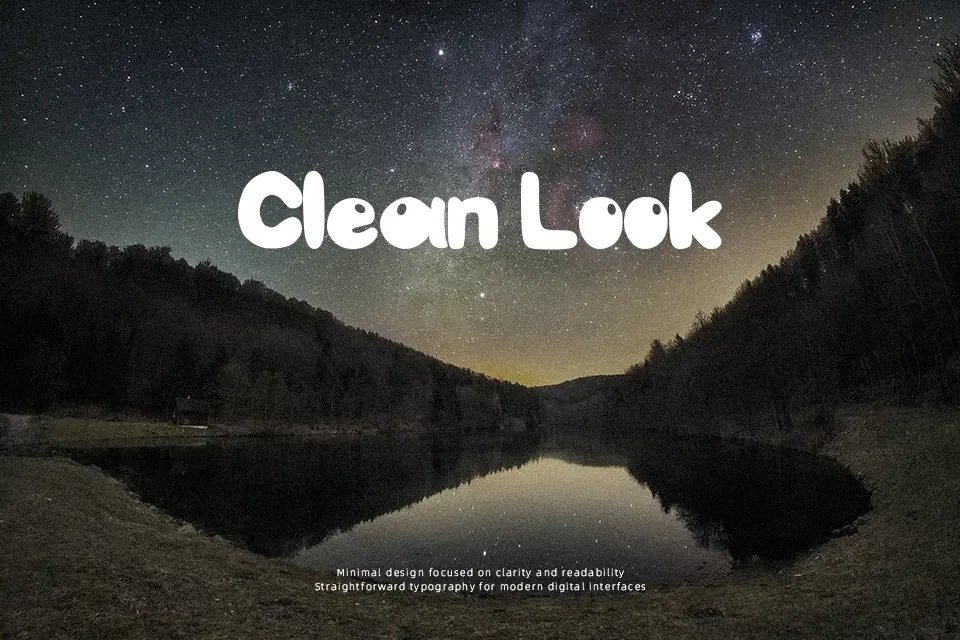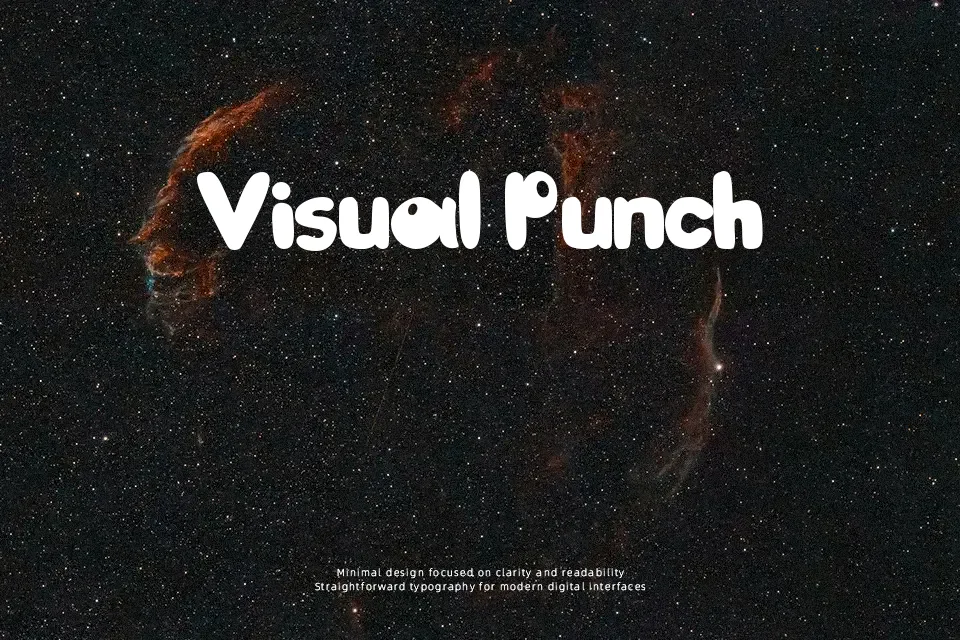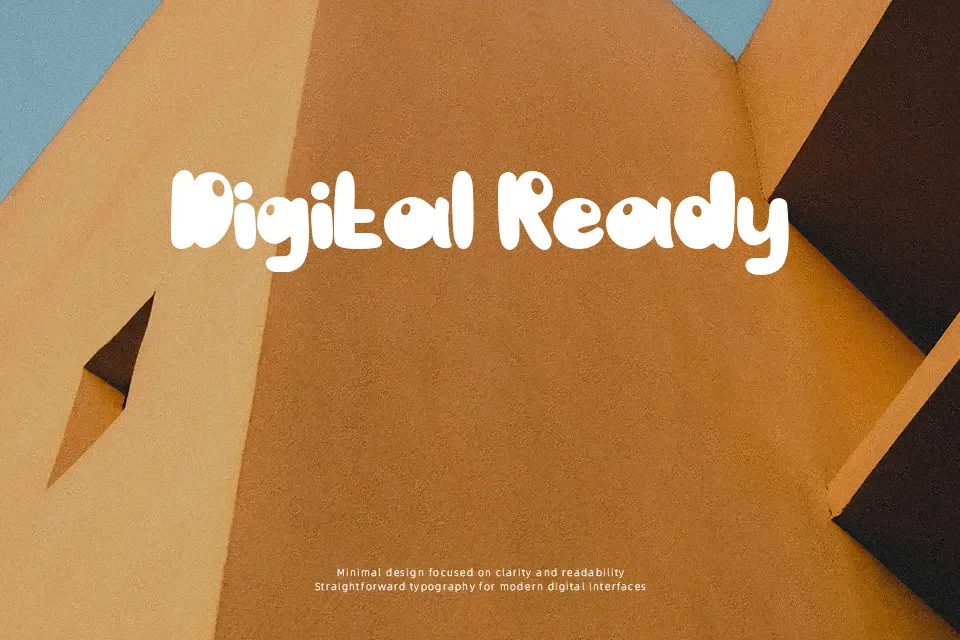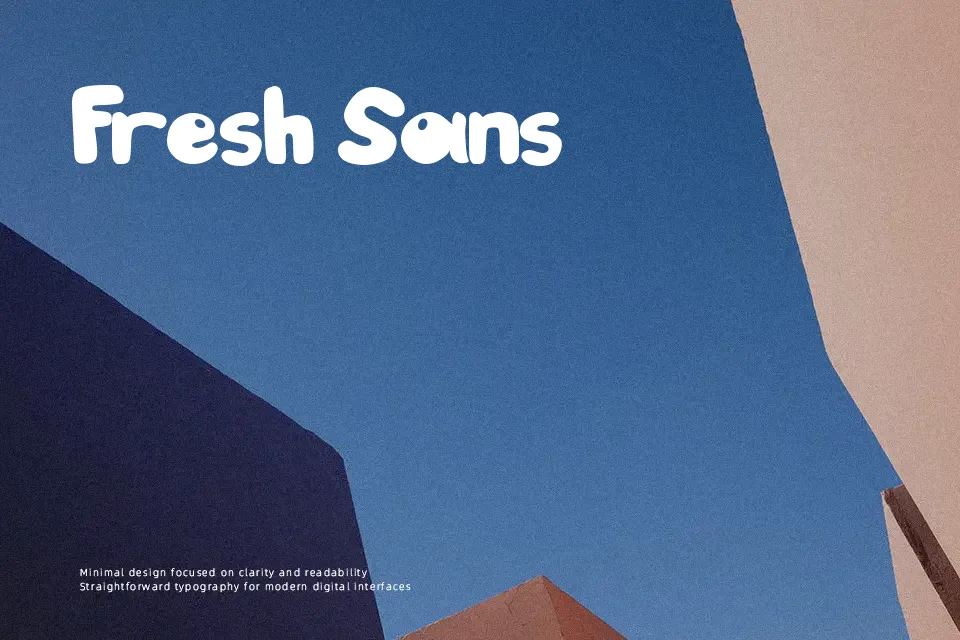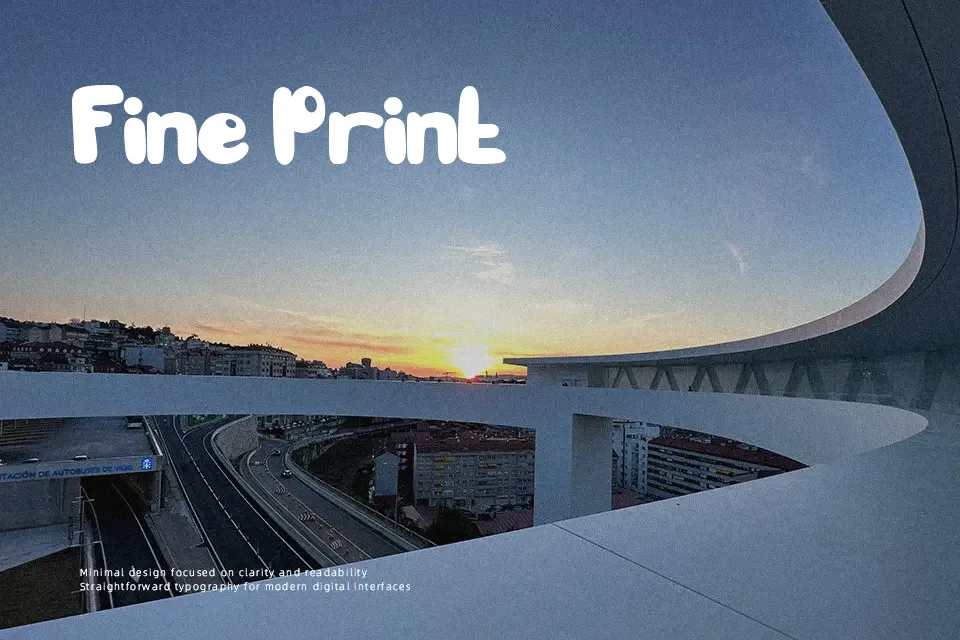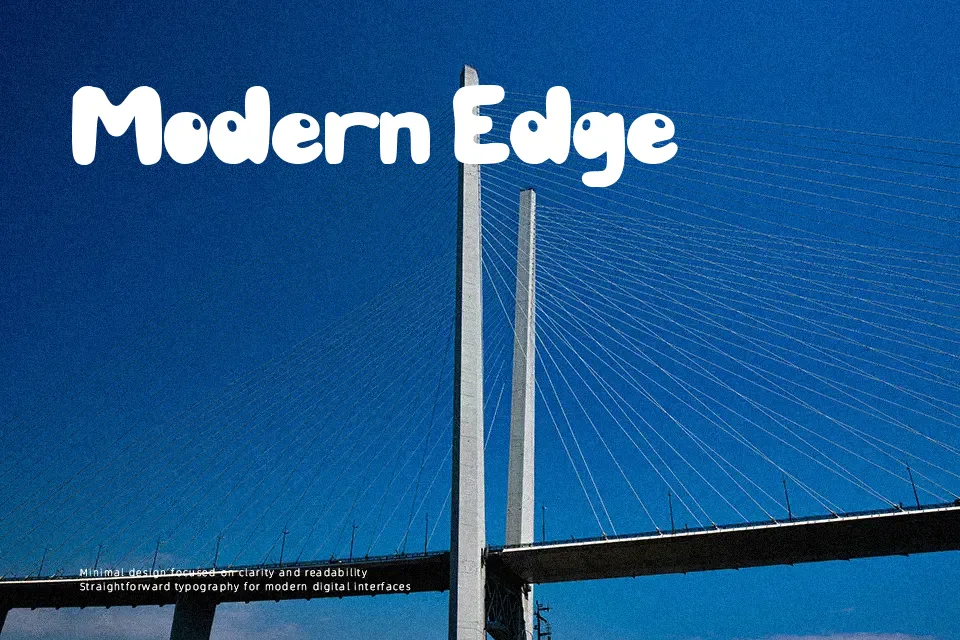
Bubble Cute Font
Bubble Cute Font is a charming display typeface characterized by its bold, rounded structures and ultra-thick strokes. With almost no sharp edges, it creates an inflated, bouncy impression that instantly catches the eye. The balloon-like letterforms bring a highly casual and enthusiastic vibe to your visual artwork. This typeface performs exceptionally well for lighthearted projects such as children’s apparel, vibrant toy packaging, and lively event flyers, where a cheerful personality takes priority. Conversely, its heavily stylized, bubbly appearance makes it a poor candidate for dense paragraphs, corporate branding, or formal documents where readability and strict professionalism are required. It shares structural similarities with traditional comic fonts but delivers a noticeably softer, more dimensional aesthetic.
Eye-catching children’s book covers
Vibrant product packaging and labels
Cheerful event posters and flyers
Lively social media announcements
Dense paragraphs or long-form reading
Formal corporate branding and legal documents
Minimalist luxury fashion campaigns